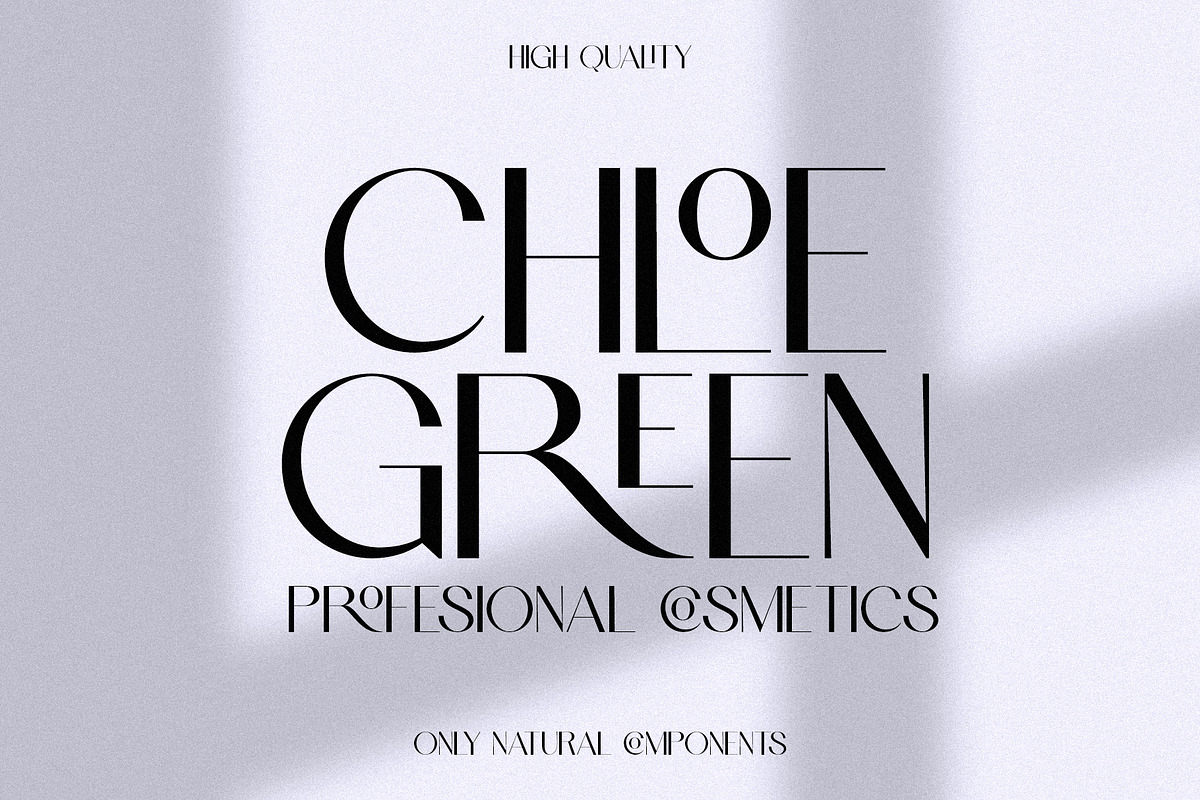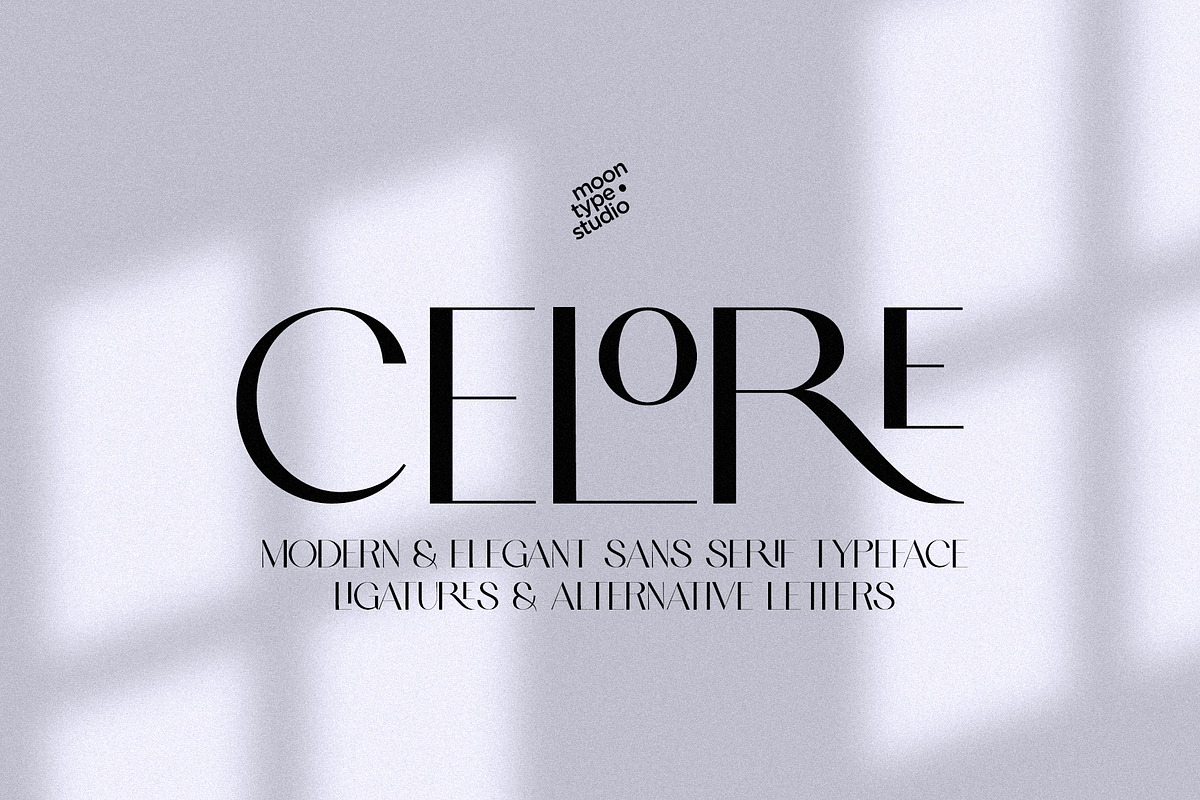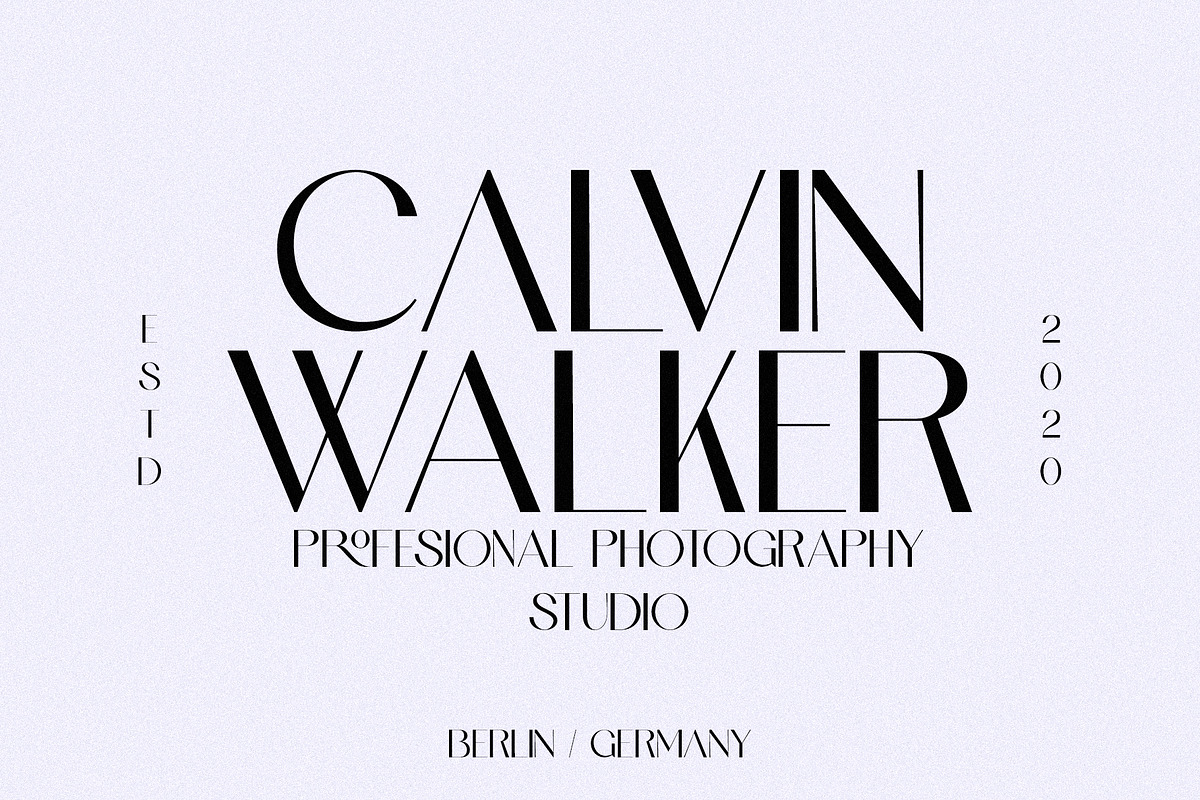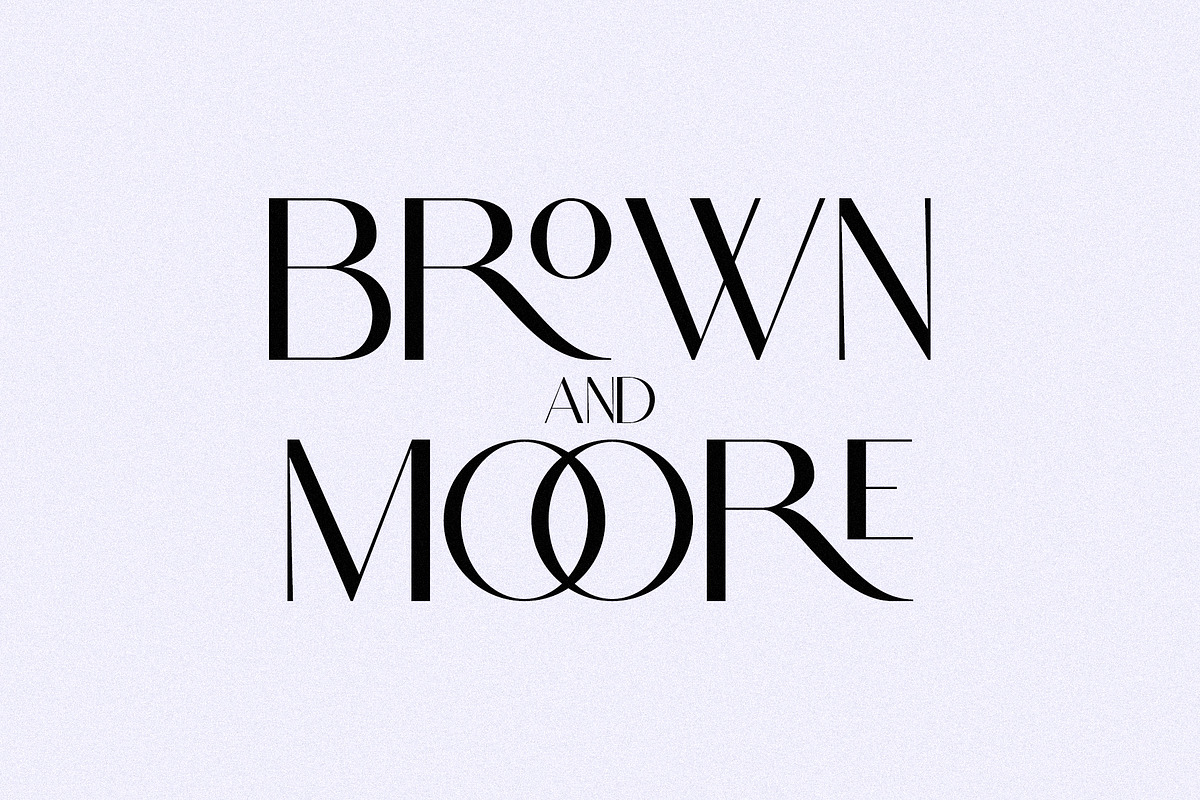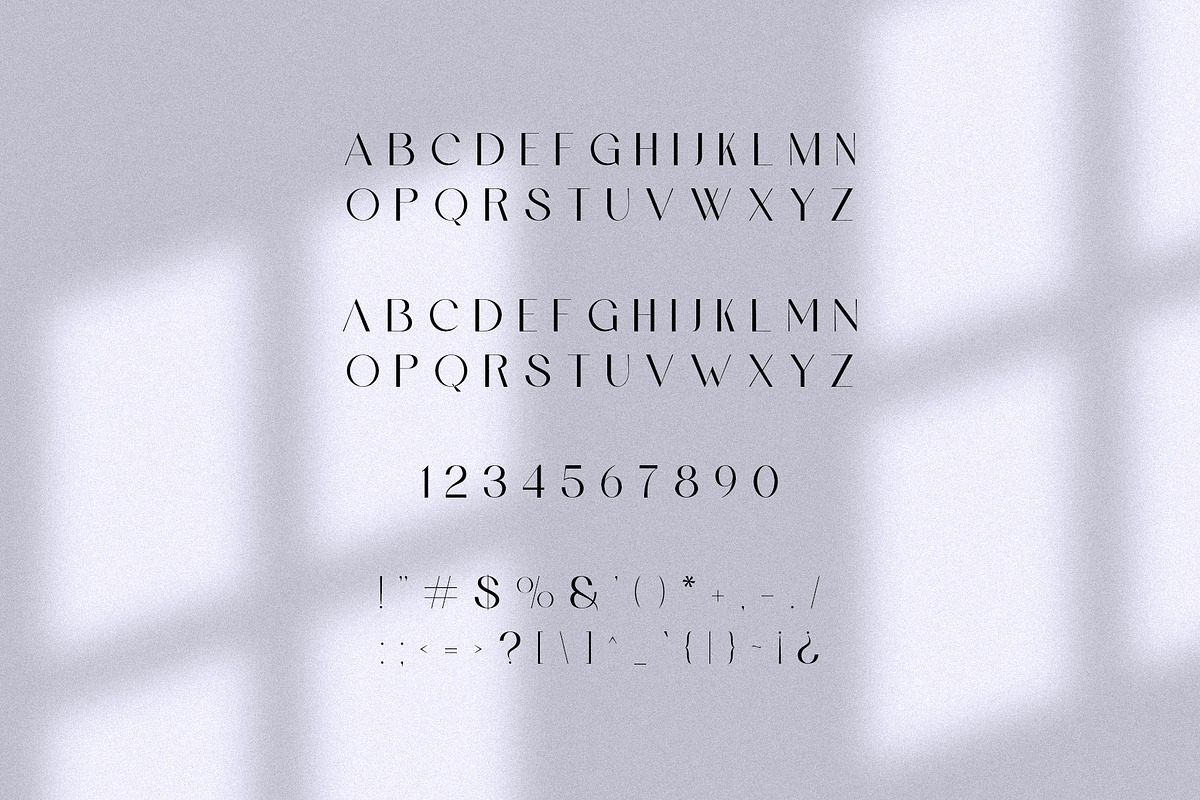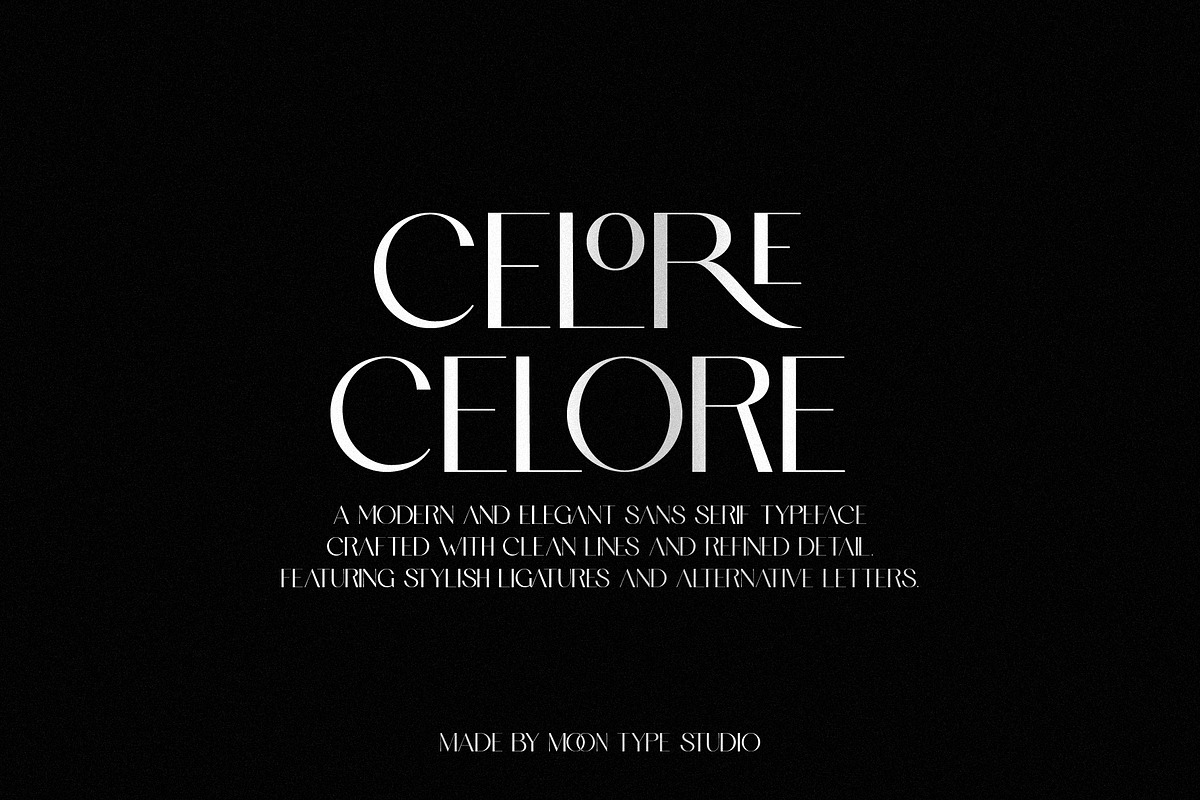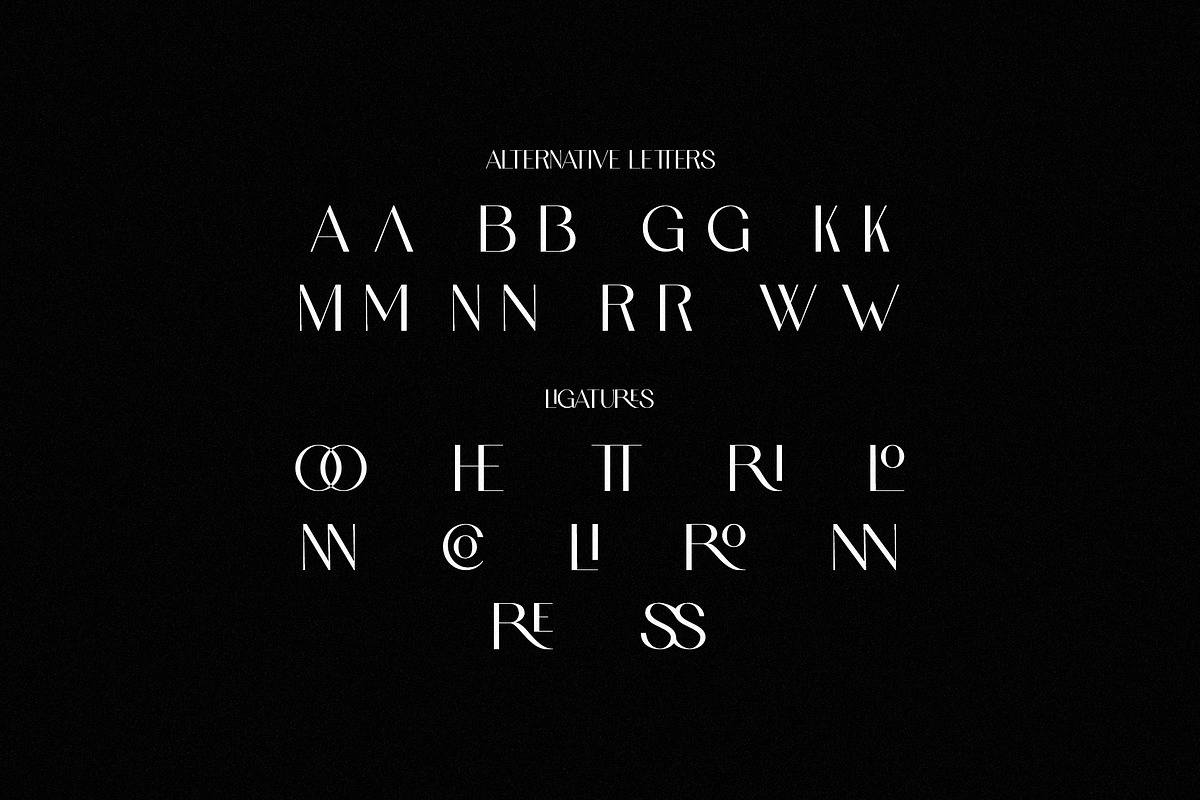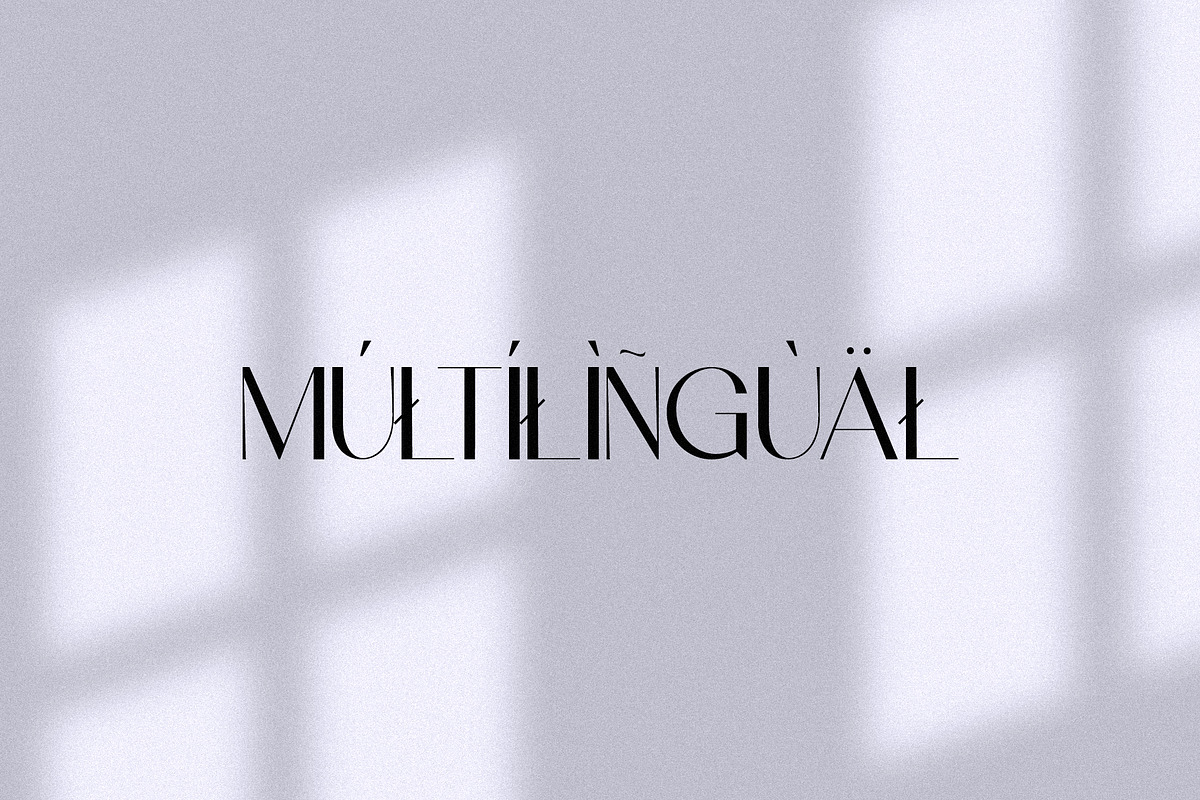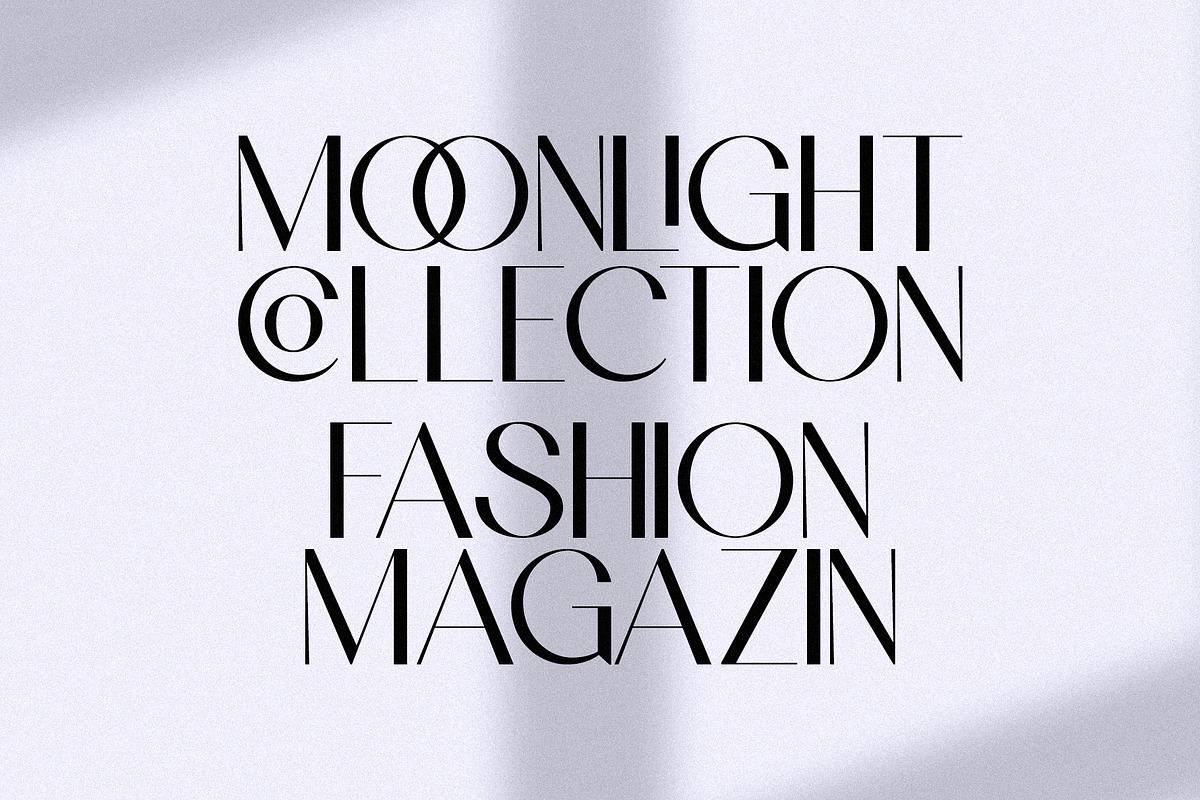
Celore - Elegant & Modern Sans
Celore is a refined sans serif typeface that blends modern minimalism with timeless elegance. Designed for creators who value sophistication and clarity, Celore delivers a clean, confident look while maintaining subtle character details that make every composition feel premium.
With beautifully crafted ligatures and thoughtfully designed alternative letters, Celore allows you to create unique, expressive typography effortlessly. Whether you’re designing luxury branding, editorial layouts, logos, social media graphics, or high-end packaging, Celore adapts seamlessly to both bold statements and delicate details.
Its balanced proportions, smooth curves, and contemporary structure make it versatile across print and digital applications. From striking headlines to stylish wordmarks, Celore brings harmony, personality, and modern elegance to your designs.